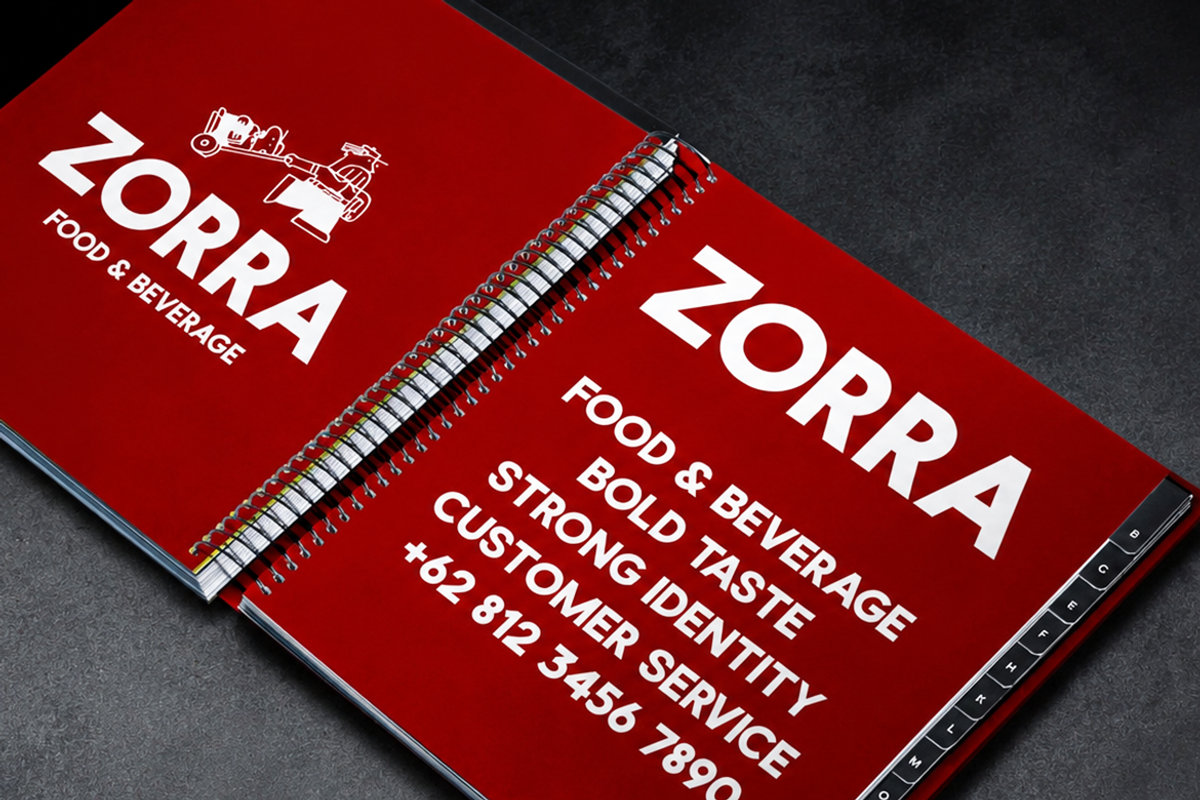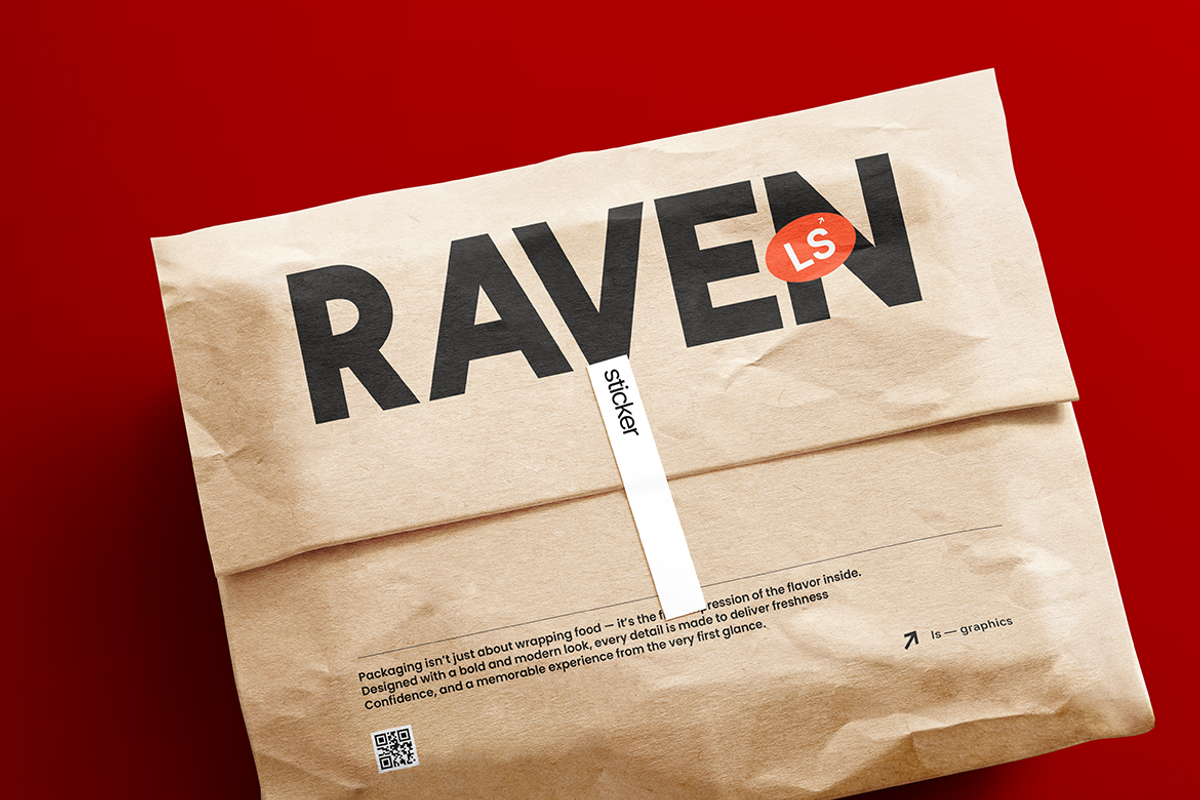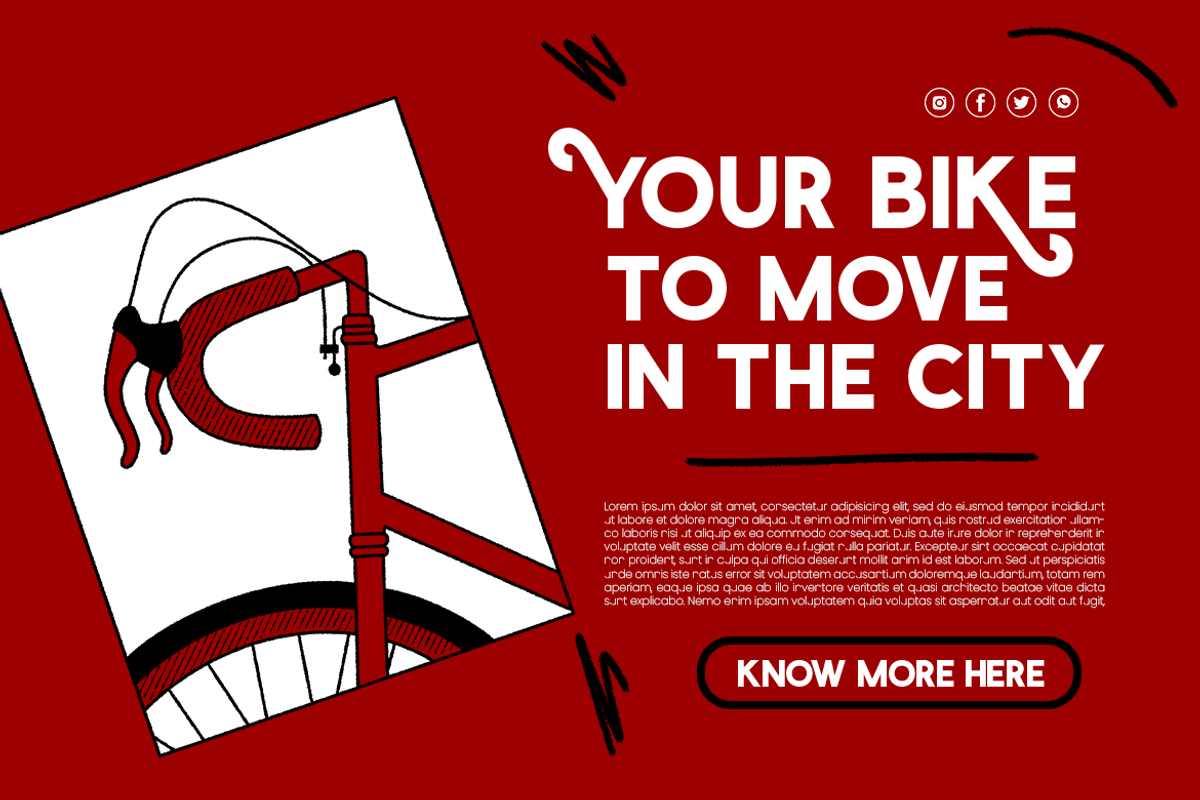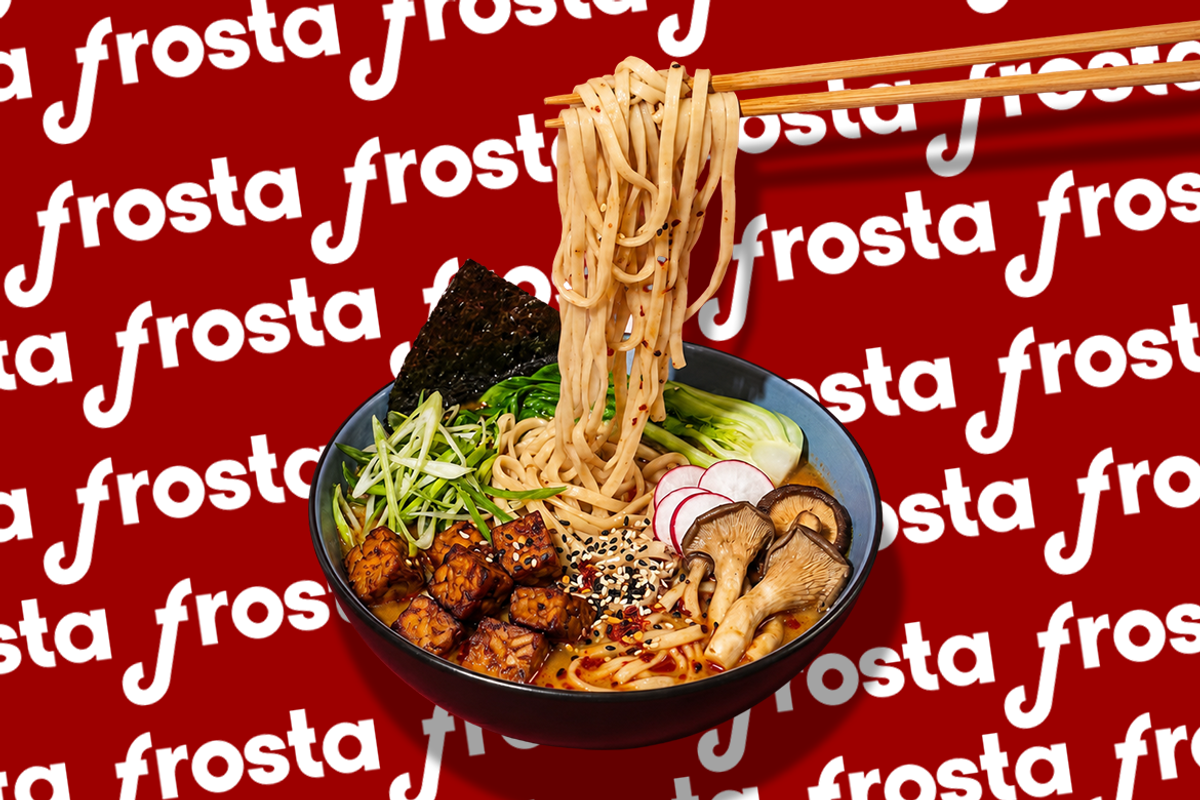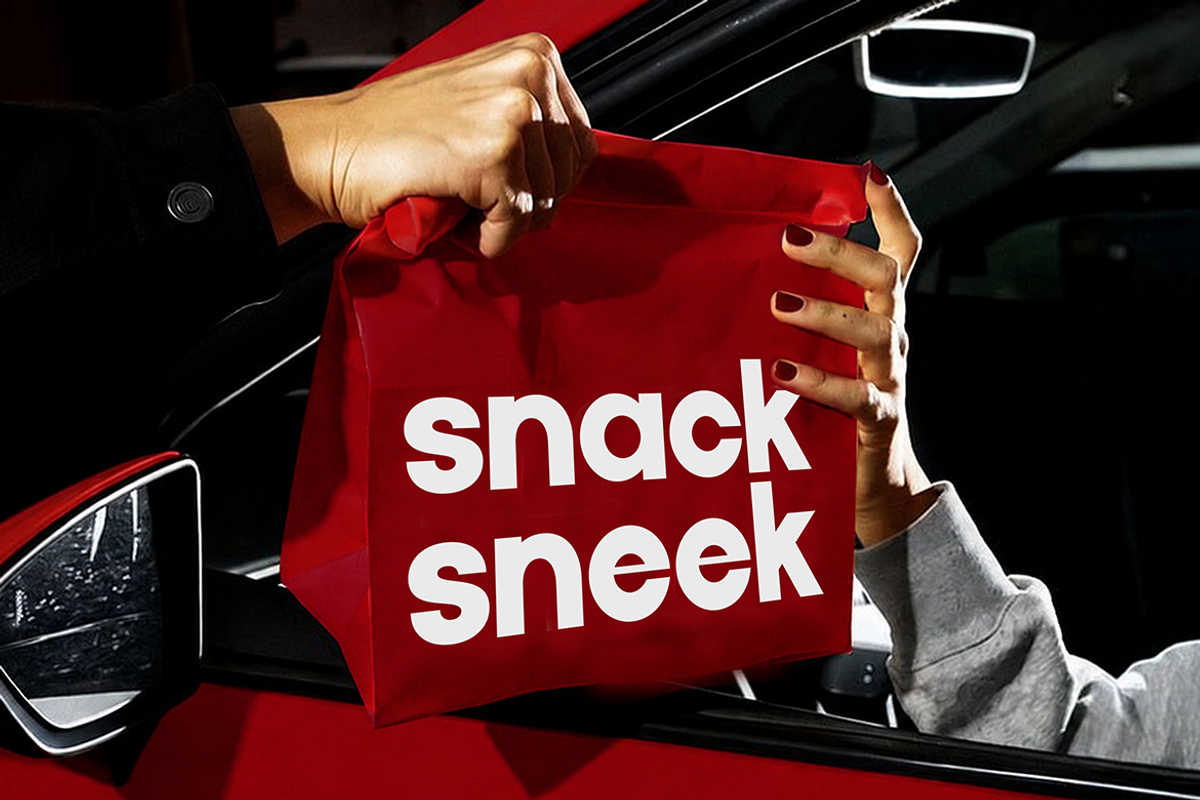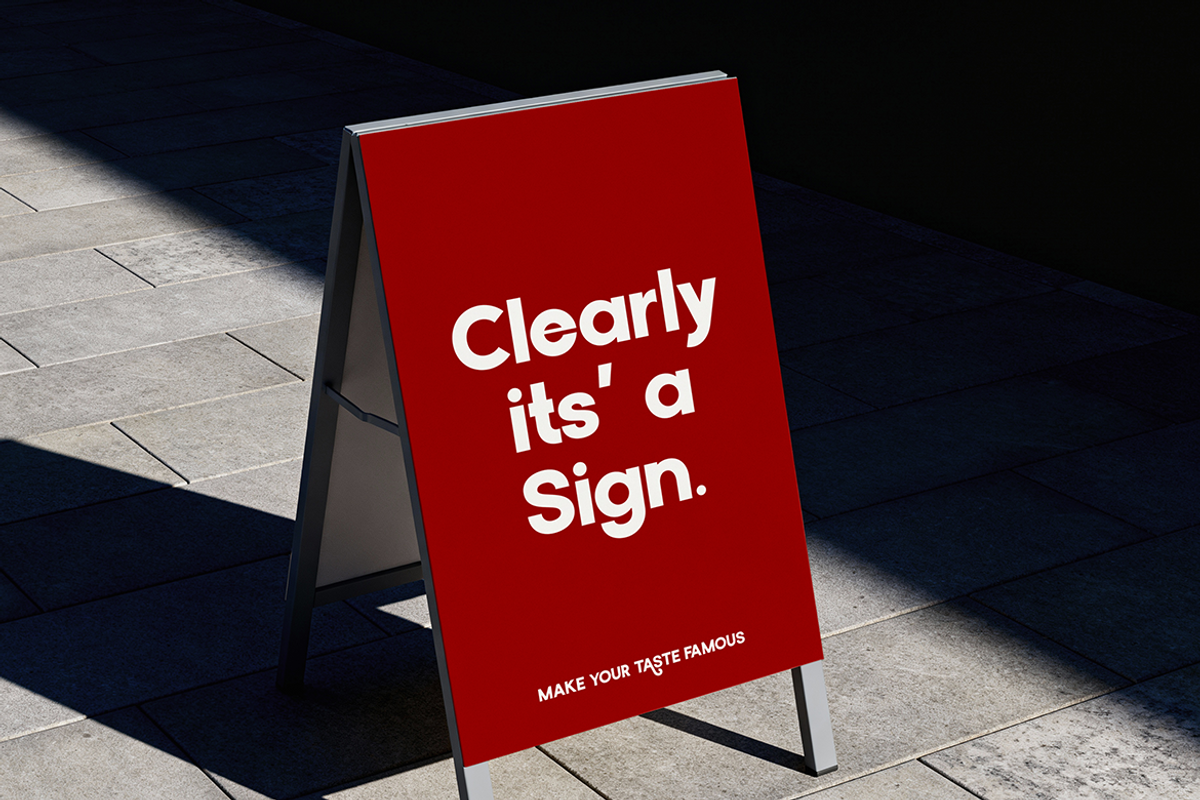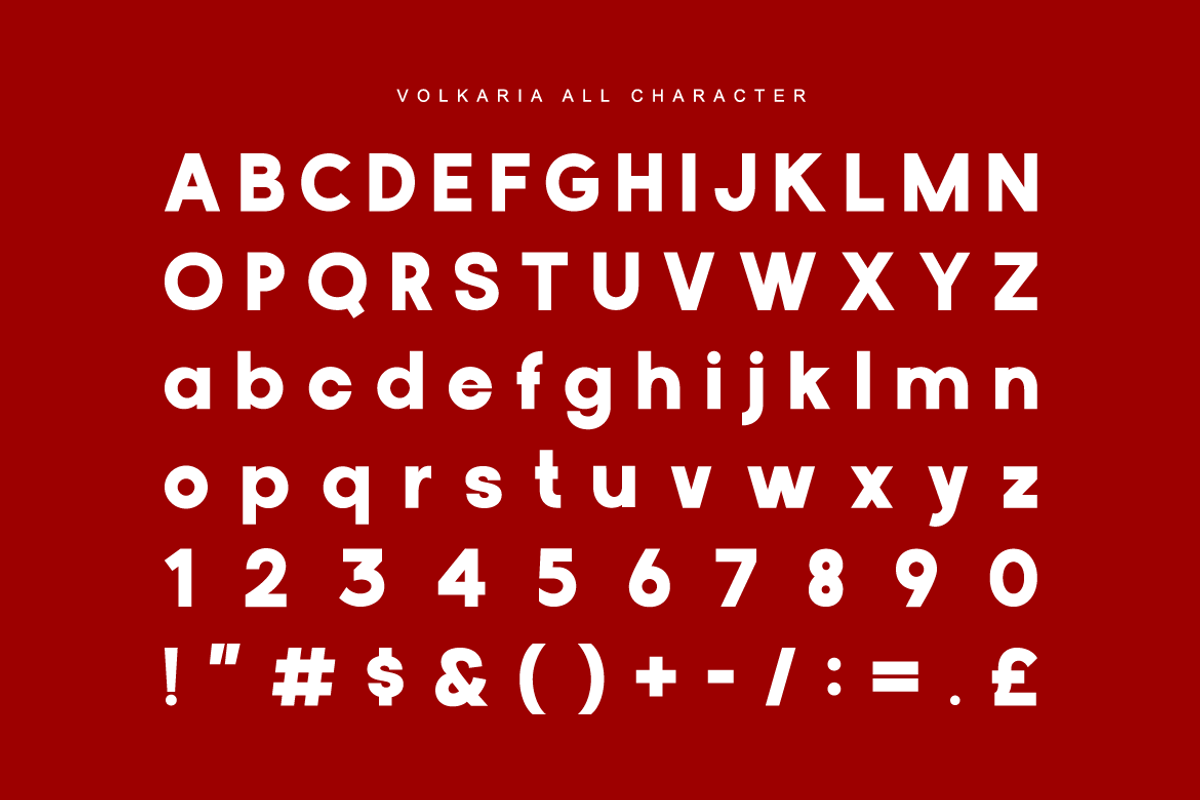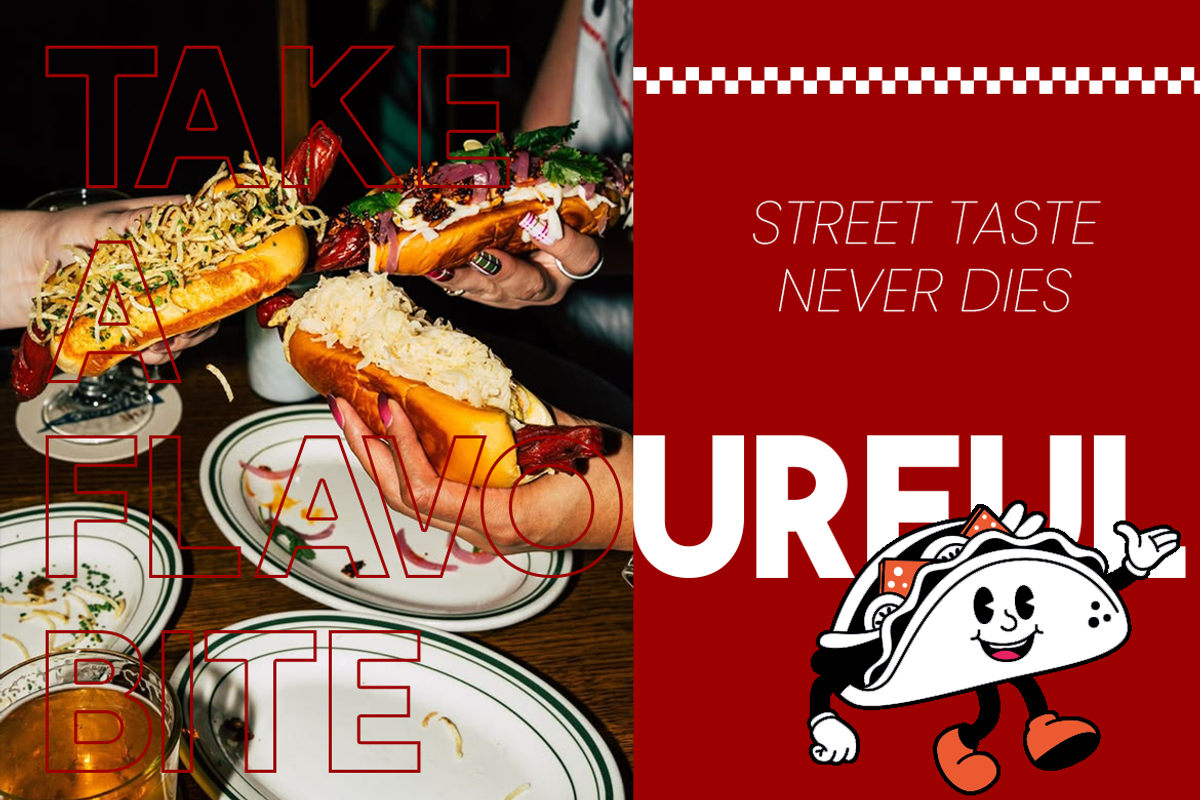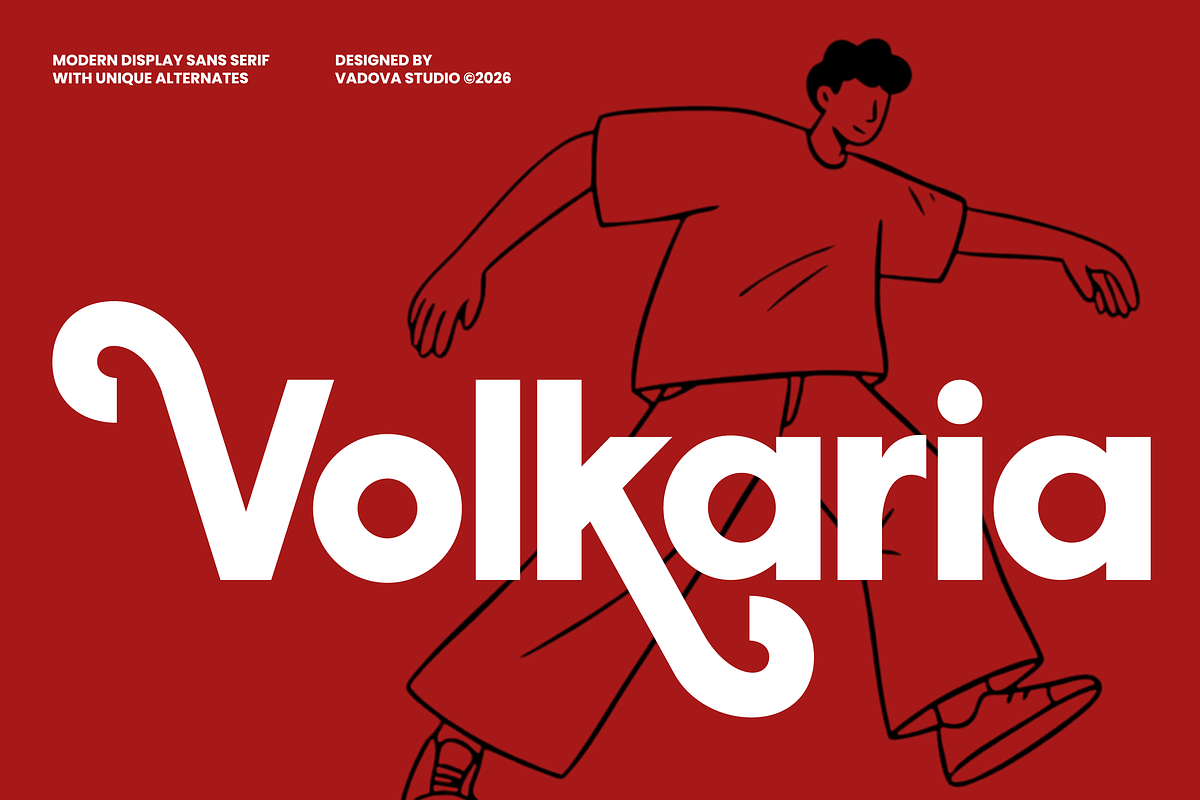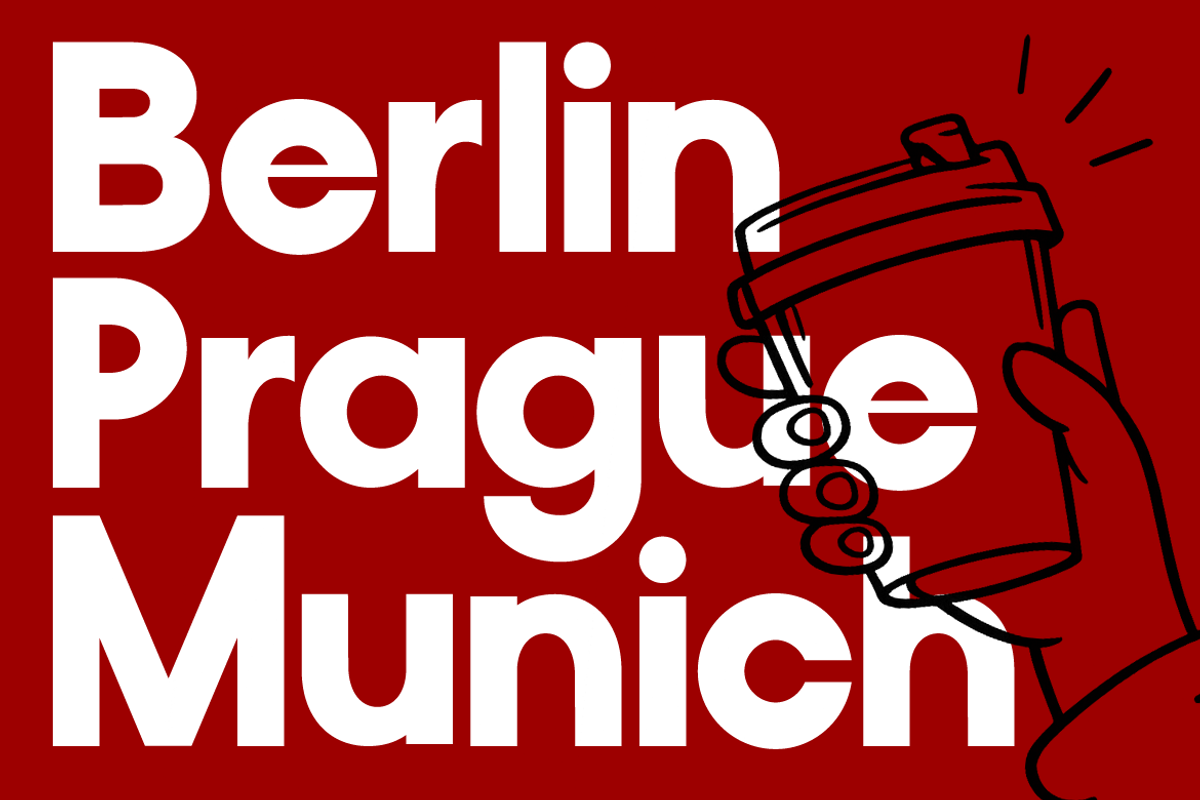
Volkaria Modern Display Sans Font
Volkaria Modern Display Sans Serif features a bold geometric structure with playful alternate characters and strong contemporary styling. The font includes uppercase, lowercase, numerals, punctuation, and unique curved alternates that create a fresh and expressive visual identity. Its thick sans serif construction delivers clean readability while maintaining a modern youthful personality suitable for branding, packaging, social media graphics, posters, merchandise, and editorial layouts.
Relevance & Use Cases is relevant for branding projects, social media campaigns, poster designs, packaging concepts, advertising visuals, editorial layouts, merchandise graphics, and modern business promotions. Its bold sans serif appearance and playful alternate details create a strong visual presence suitable for cafes, fashion brands, lifestyle products, creative agencies, music promotions, and youthful modern campaigns.
Modern display sans serif with clean geometric construction
Distinctive alternate characters adding playful and memorable personality
Smooth rounded forms balanced with bold structure for visual clarity
Minimalist letterforms with contemporary proportions for versatile appeal
Soft curves and refined edges creating a friendly, approachable tone
Modern brand identity systems seeking a bold yet approachable personality
Logo design and visual branding that require unique typographic character
Editorial headlines, magazine covers, and contemporary poster layouts
Product packaging and merchandise branding with a clean modern aesthetic
Social media templates and marketing materials that need standout typography
Supports numerals, punctuation, and extensive symbol set